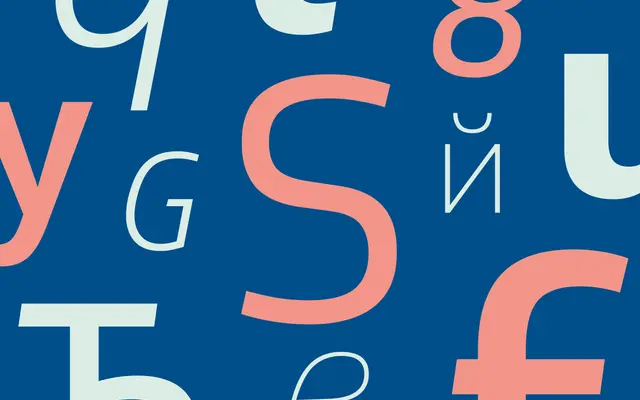
Soleto
Dalton Maag · Fernando Caro, Fabio Haag, Rafael Saraiva · 2024
A humanist sans by Fernando Caro, Fabio Haag and Rafael Saraiva with eighteen styles tuned for longform text and corporate identity.
A humanist sans by Fernando Caro, Fabio Haag and Rafael Saraiva that traded across a decade of work into a contemporary family with quiet confidence. Eighteen styles span Hairline to Black with matching italics, with an even rhythm and texture intended to hold longform text without falling out of voice in display use. The traditional letter shapes give it a warm, inviting register that suits branding, annual reports and corporate communications.
Dalton Maag describe Soleto as a contemporary sans family that exudes quiet confidence, excelling in longform text with even rhythm and texture, and combining traditional letter shapes with a modern, inviting appeal for branding and corporate use.